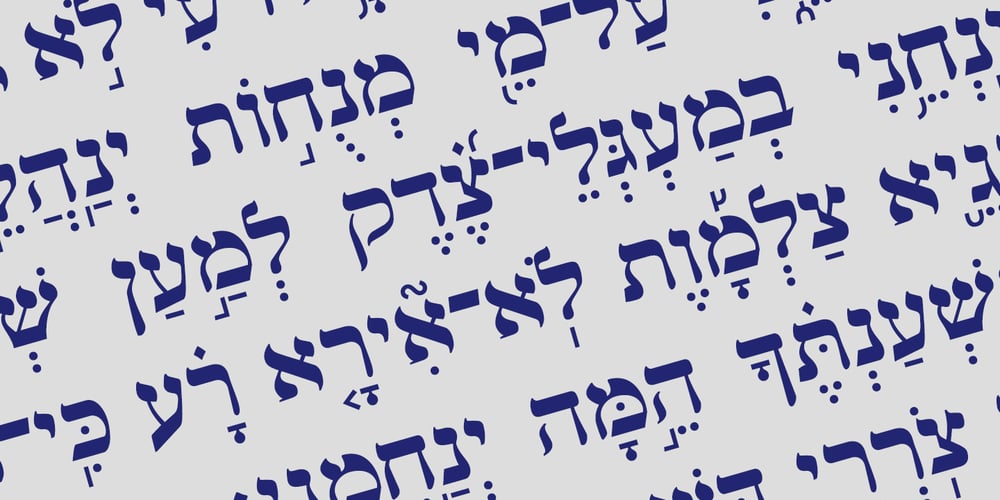
Hebrew Marge Tanach Font Family was designed by Sami Artur Mandelbaum and published by Samtype. Hebrew Marge Tanach contains 2 styles and family package options. This is the classical font to make a Tanach, Siddur or a regular hebrew book.These fonts include all diacritic marks: Nikud, Teamim and modern pontuation.You can find in these fonts: shevana, kamats katan, cholam chasser and dagesh chazak.The best program to use these fonts is Adobe Indesign.